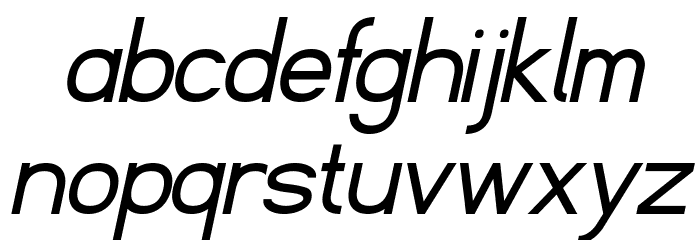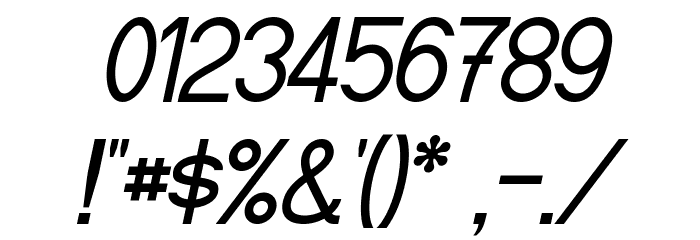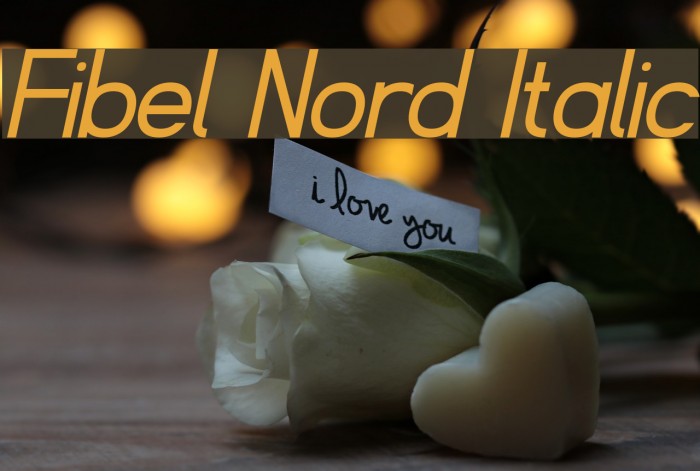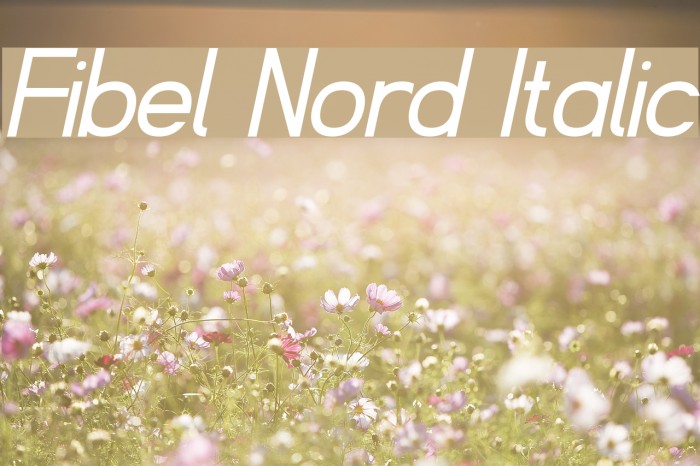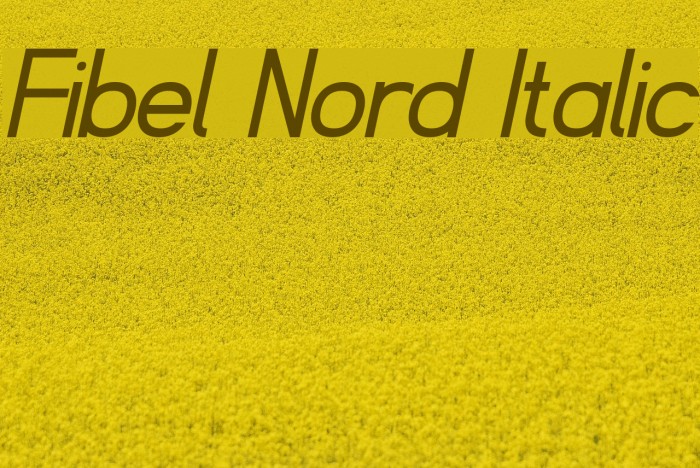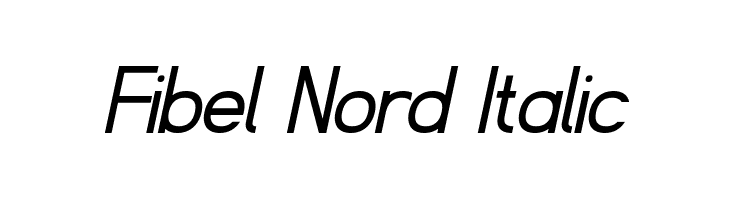
Fibel Nord Italic Font
This font features a sleek, italicized style with a modern and dynamic appearance. The characters are slightly slanted, giving a sense of motion and elegance. The strokes are consistent in width, contributing to a clean and uniform look. The uppercase letters are tall and commanding, while the lowercase letters maintain a balanced proportion. The numerals are clear and easily distinguishable, and the special characters are well-integrated into the overall design. This font's smooth curves and sharp angles make it versatile for various applications.
A modern, italicized font with sleek, consistent strokes and a dynamic appearance.
- Proposed Projects: Ideal for branding, advertising, and editorial design where a modern and stylish look is desired.
- Use Case: Headlines, Logos, Editorial design